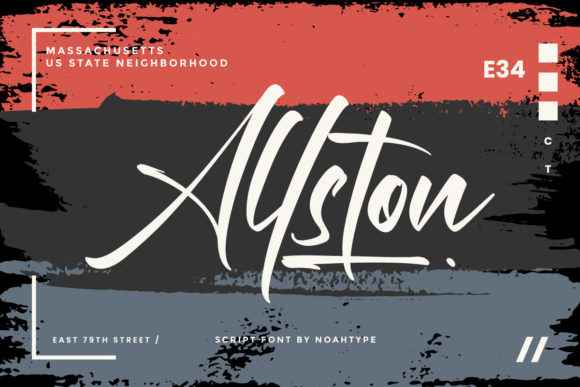
The Allston Font: A Stunning Script to Elevate Your Designs
I’ll never forget the time I was working on a wedding invitation project, and my client asked for a font that would make their special day feel like a fairytale. I scoured the internet, tried out dozens of fonts, but nothing seemed quite right. That was until I stumbled upon the Allston font. With its modern, hand-crafted characters and natural sketch-like feel, it was love at first sight! In this article, I’ll share my experience with the Allston font, its features, and how to make the most of it in your designs.
An Honest Review of Allston Font
What I Love About Allston Font ✨
• 💕 Its incredibly versatile style, perfect for a wide range of design projects
• 🎨 A beautiful, handwritten touch that adds a personal feel to any design
• 📚 Suitable for various industries, from wedding planning to music and film
While the Allston font is amazing, there are a few things to keep in mind:
• 🤔 It may not be the best choice for very formal or corporate designs, as it has a more artistic feel
• ⚠️ Some users might find the font a bit too ornate or decorative for certain projects
A Practical Guide to Using Allston Font
The Story Behind Allston Font
The Allston font was designed with the intention of creating a modern, hand-crafted script that would bring a personal touch to any design. Inspired by the beauty of handwritten letters and the elegance of calligraphy, the font’s creator aimed to produce a versatile typeface suitable for a wide range of projects. Whether it’s a wedding invitation or a music album cover, the Allston font is sure to impress.
Q: What is the Allston font best used for?
A: The Allston font is perfect for wedding and engagement invitations, branding, movie and book titles, music album covers, festival promotions, social media posts, and more.